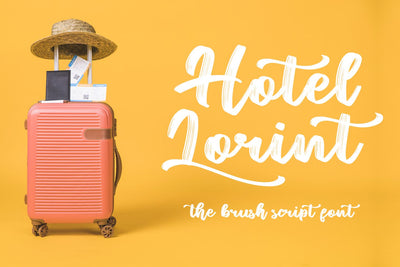
Hotel Lorint
introducing
HOTEL LORINT
- the brush script font -
This font is great for quotes, apparel, branding, logo, magazine, packaging, advertising, and more, that need a cute brush feel.
It came with uppercase, lowercase, punctuations, symbols & numerals. Also, support multilingual and already PUA encoded.